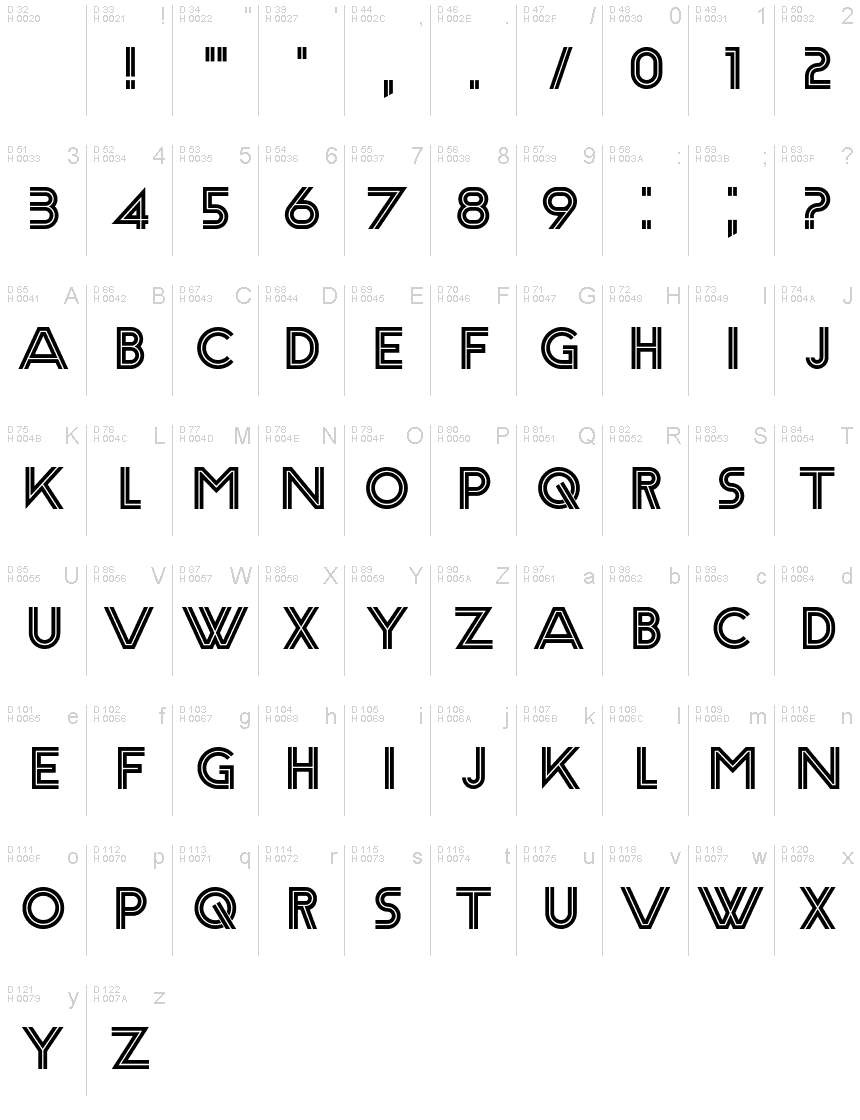
Vintage Times Regular
Vintage Times, the retro-inspired display font by Vladimir Nikolic, is perfect for projects in need of a touch of nostalgia. This semi-expanded typeface offers a unique blend of vintage and modern design elements, making it ideal for a variety of creative ventures. Use it to add some flair to your branding materials, create eye-catching headlines for your blog or publication, or even design stunning posters and flyers. With its bold and distinctive style, Vintage Times is sure to make your message stand out from the crowd. So why settle for ordinary fonts when you can evoke memories of yesteryear with Vintage Times?